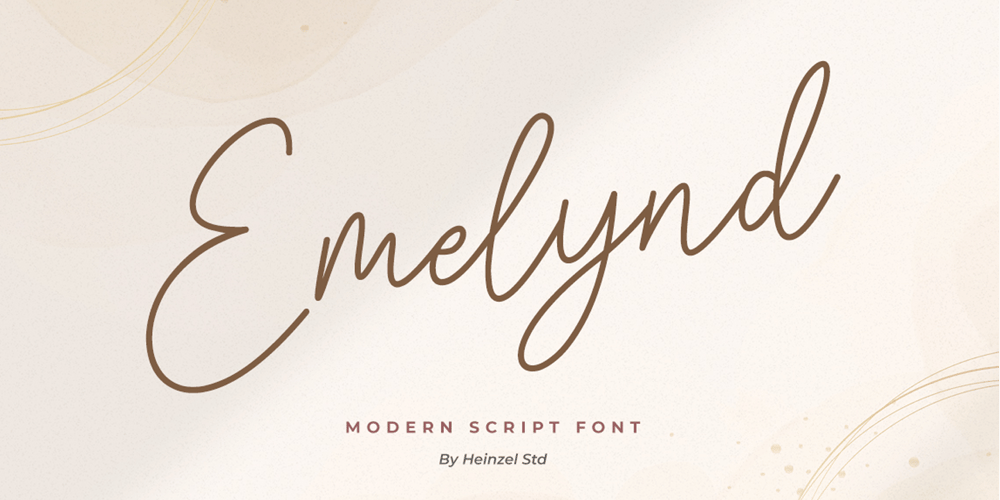
Emelynd Font Family was designed by Nofi Sofyan Hadi and published by Heinzel Std. Emelynd contains 2 styles and family package options. Emelynd Script is a new modern, and fresh script with a handwritten style, looking elegant and natural. It’s perfect for any awesome project that need handwriting taste. It includes ligatures, alternates and multi-lingual support.Emelynd Script would perfect for photography, watermarks, social media posts, advertisements, logos and branding, invitations, product designs, labels, stationery, wedding designs, product packaging, special events or anything that need handwriting taste.Thank you for your purchase!Hope you enjoy with our font